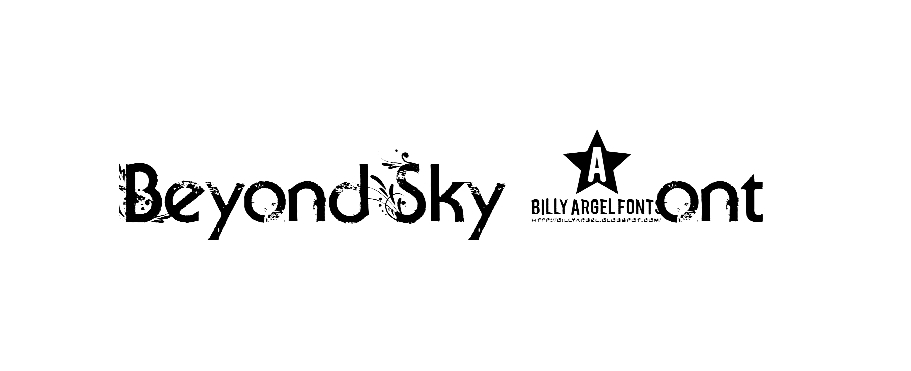
Beyond Sky Font Preview
Beyond Sky
Beyond Sky is a fancy font created by Billy Argel (2009). It's a decorative display font with plenty of personality, made to grab attention. It's a free download, and you can try it with your own text in the preview above first.
What You Can Type With Beyond Sky
Beyond Sky covers the full alphabet in upper and lowercase, plus all ten numbers, so you can set names, dates and prices without switching fonts. Everyday marks like &, !, ? and @ are there too. Thanks to its accented letters, it also works for Spanish, French, German, Portuguese and Italian, not just English.
Where Beyond Sky Works Best
Designers usually reach for fonts like Beyond Sky when they're making posters, logos and eye-catching headlines. Its lowercase letters are small compared to the capitals, so set it a size or two bigger than usual. Use it for one standout word or headline and let simpler fonts handle the rest.
Does Beyond Sky support accented letters?
Yes. Beyond Sky includes the accented letters needed for Spanish, French, German, Portuguese and Italian, so it works for more than just English.